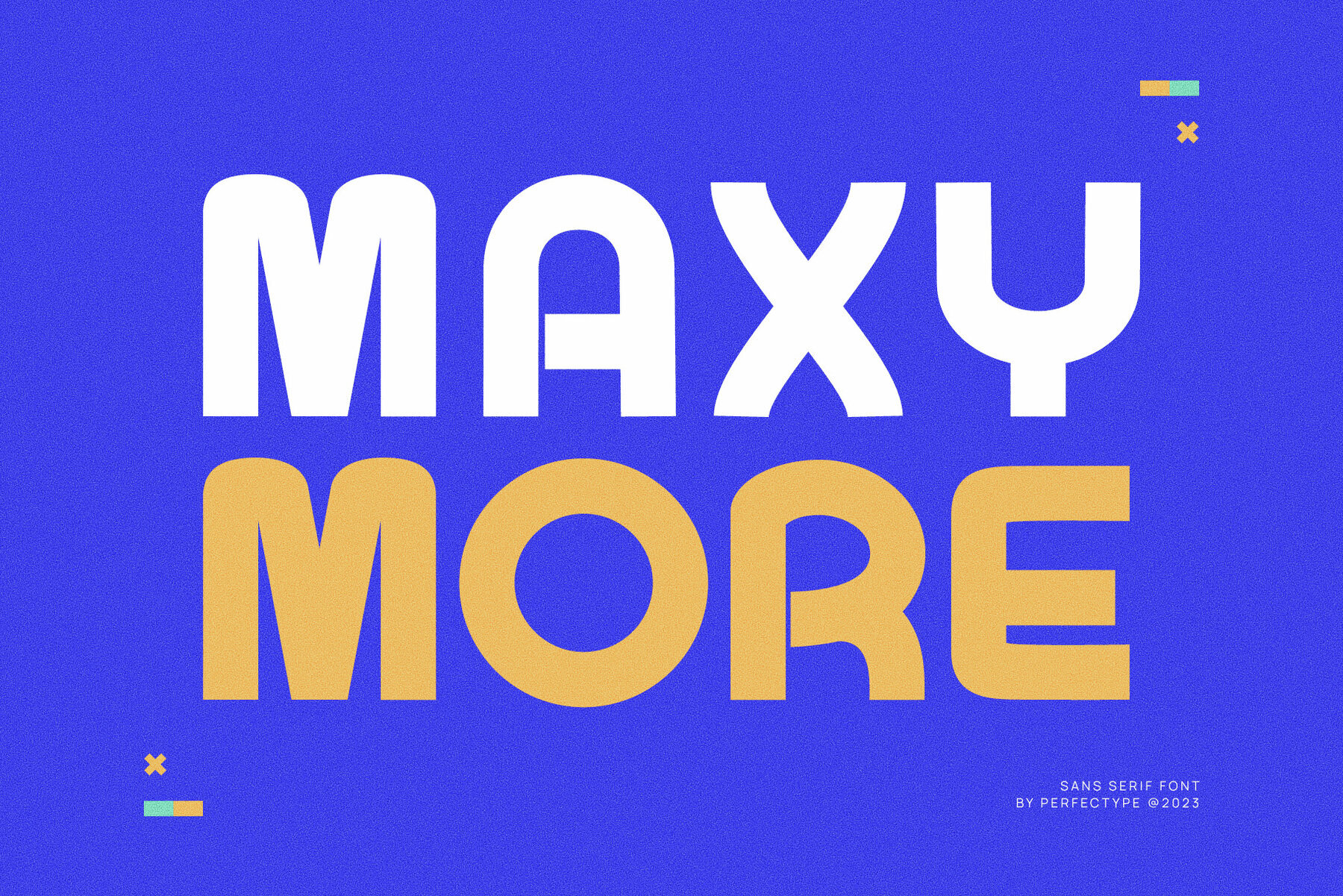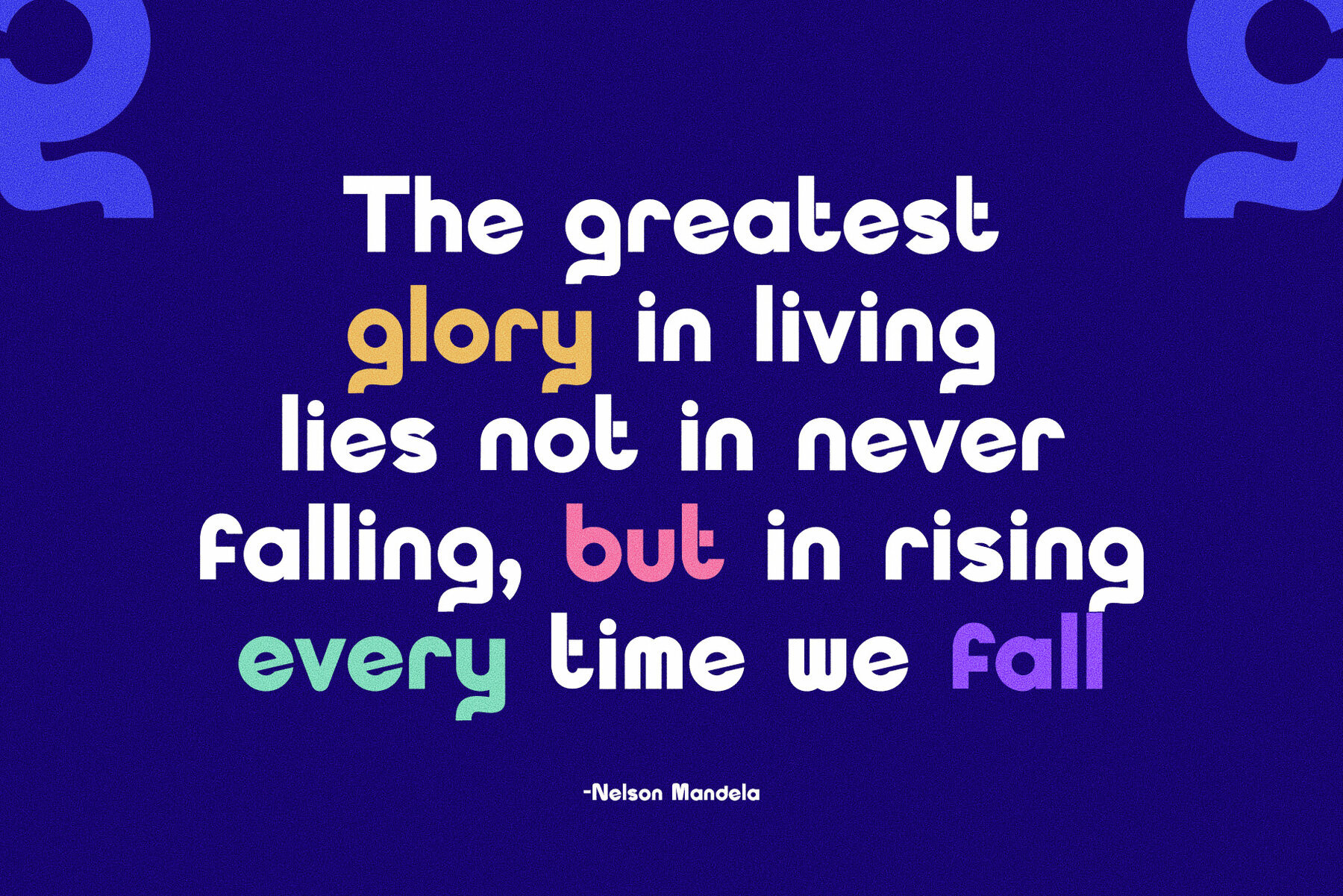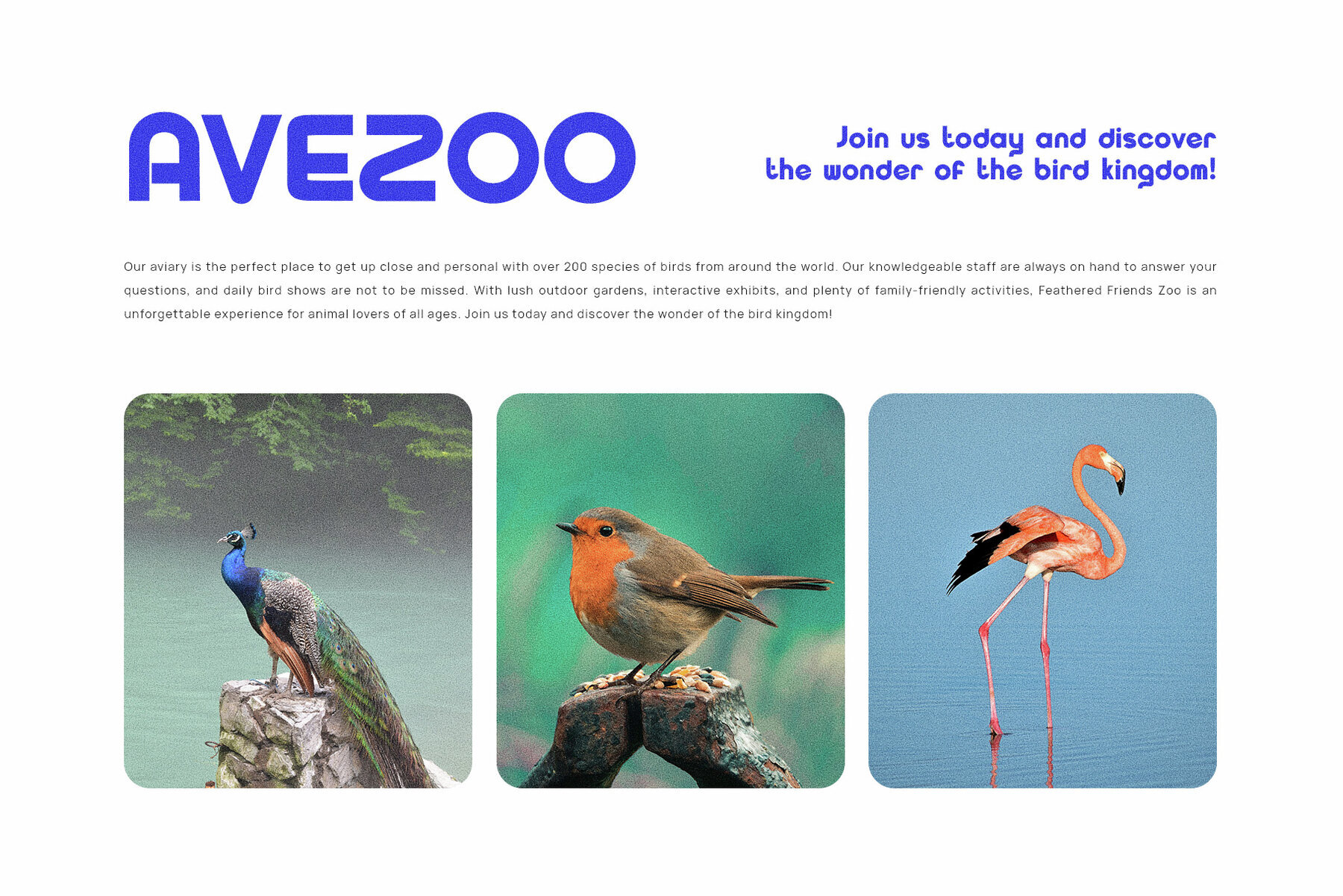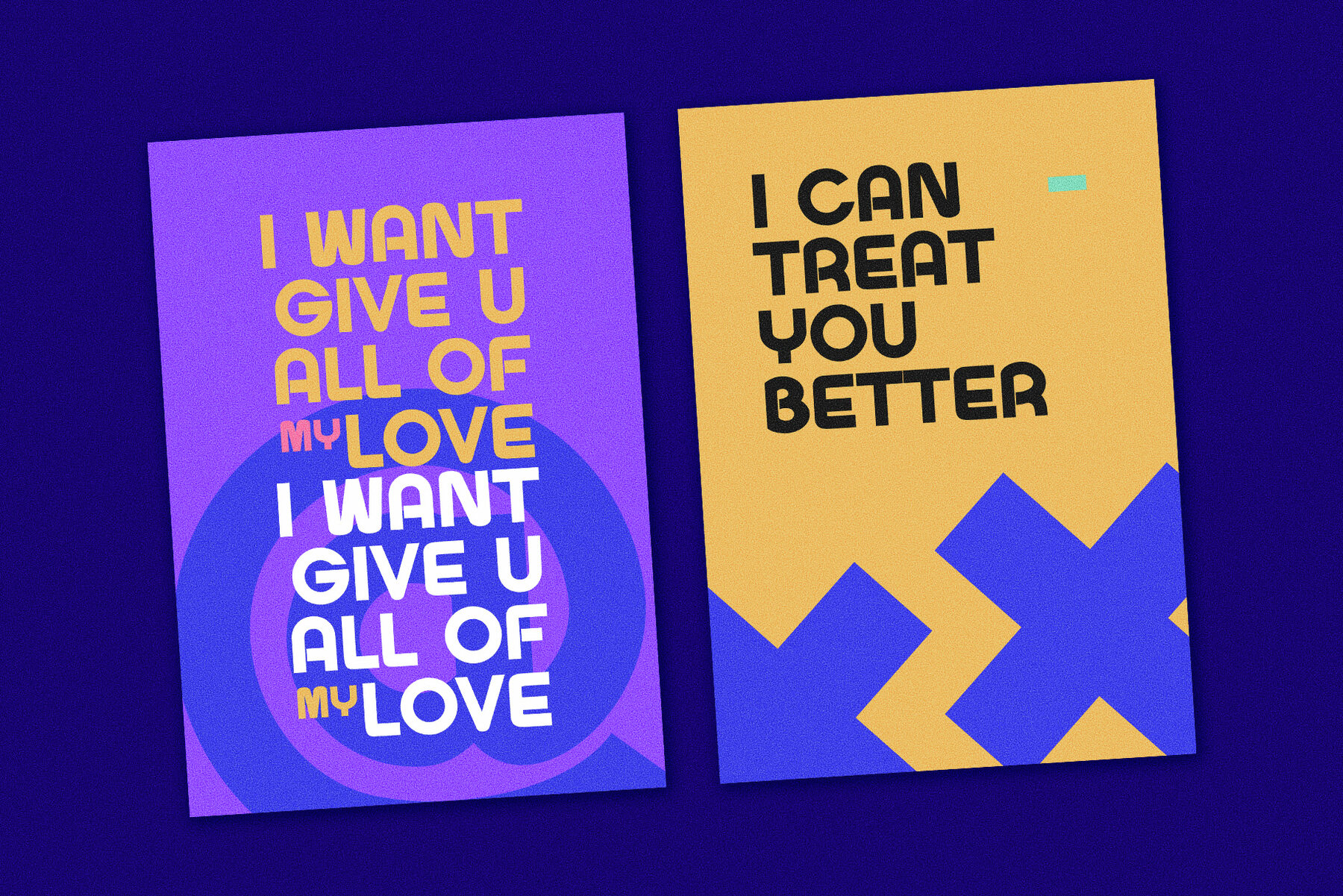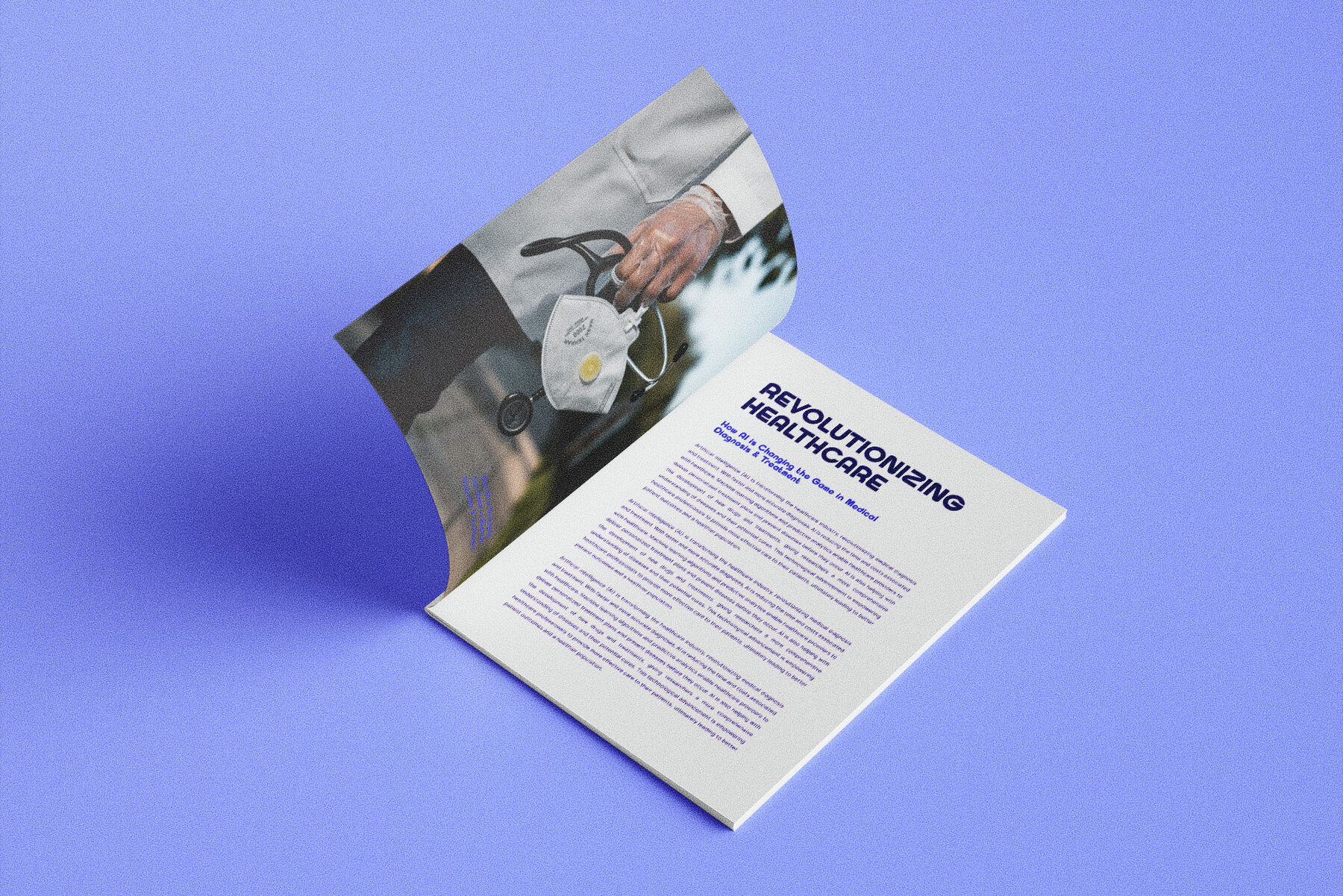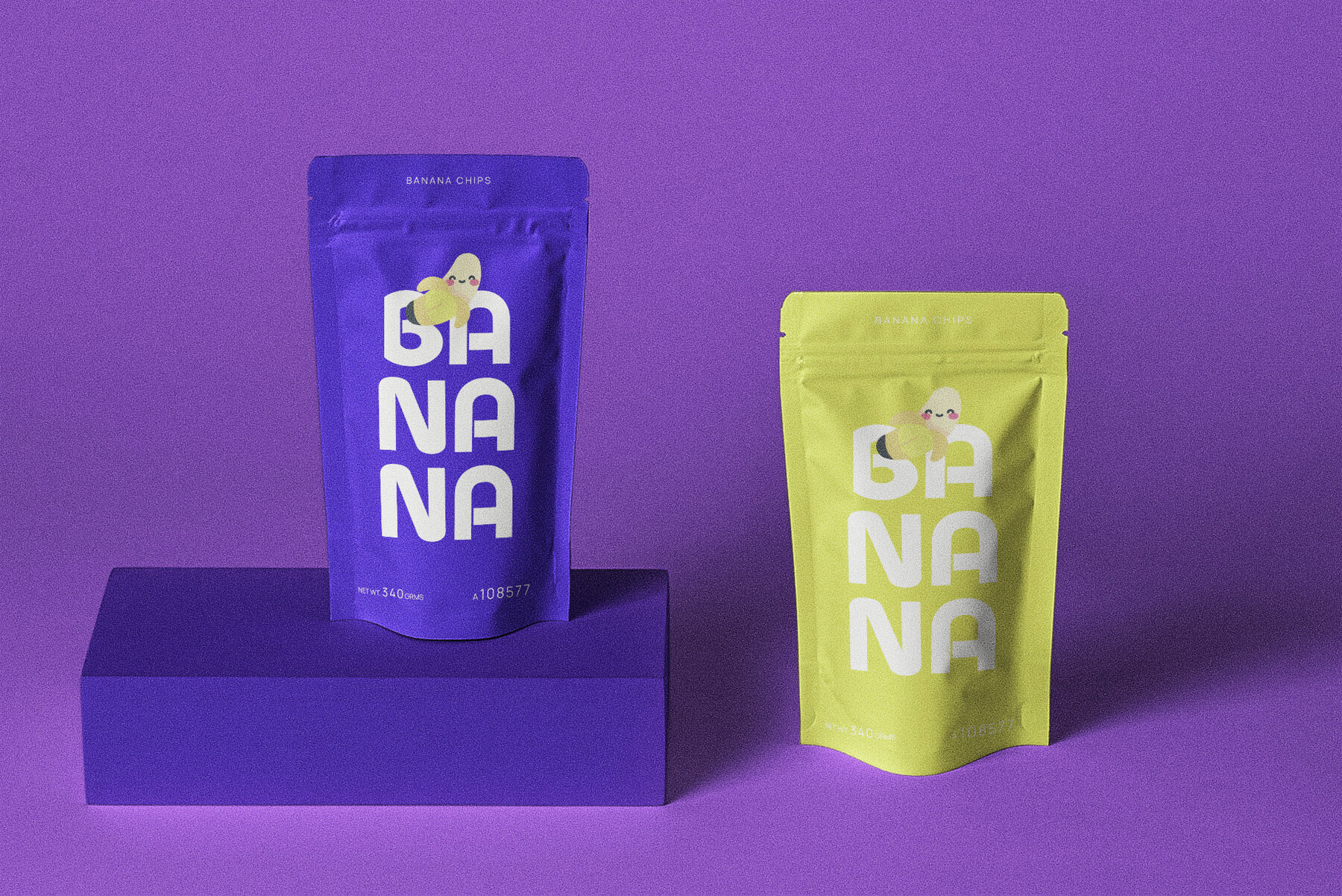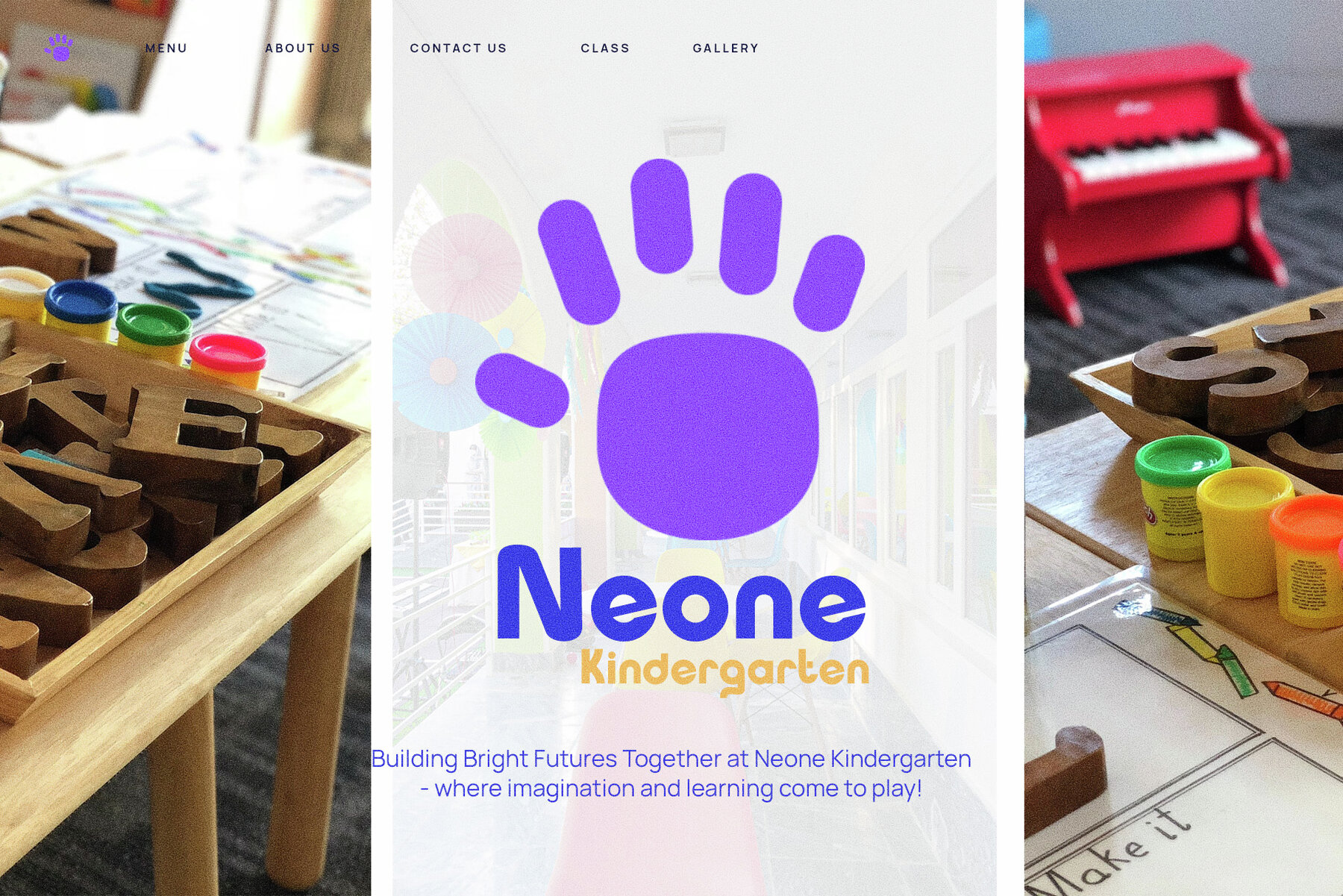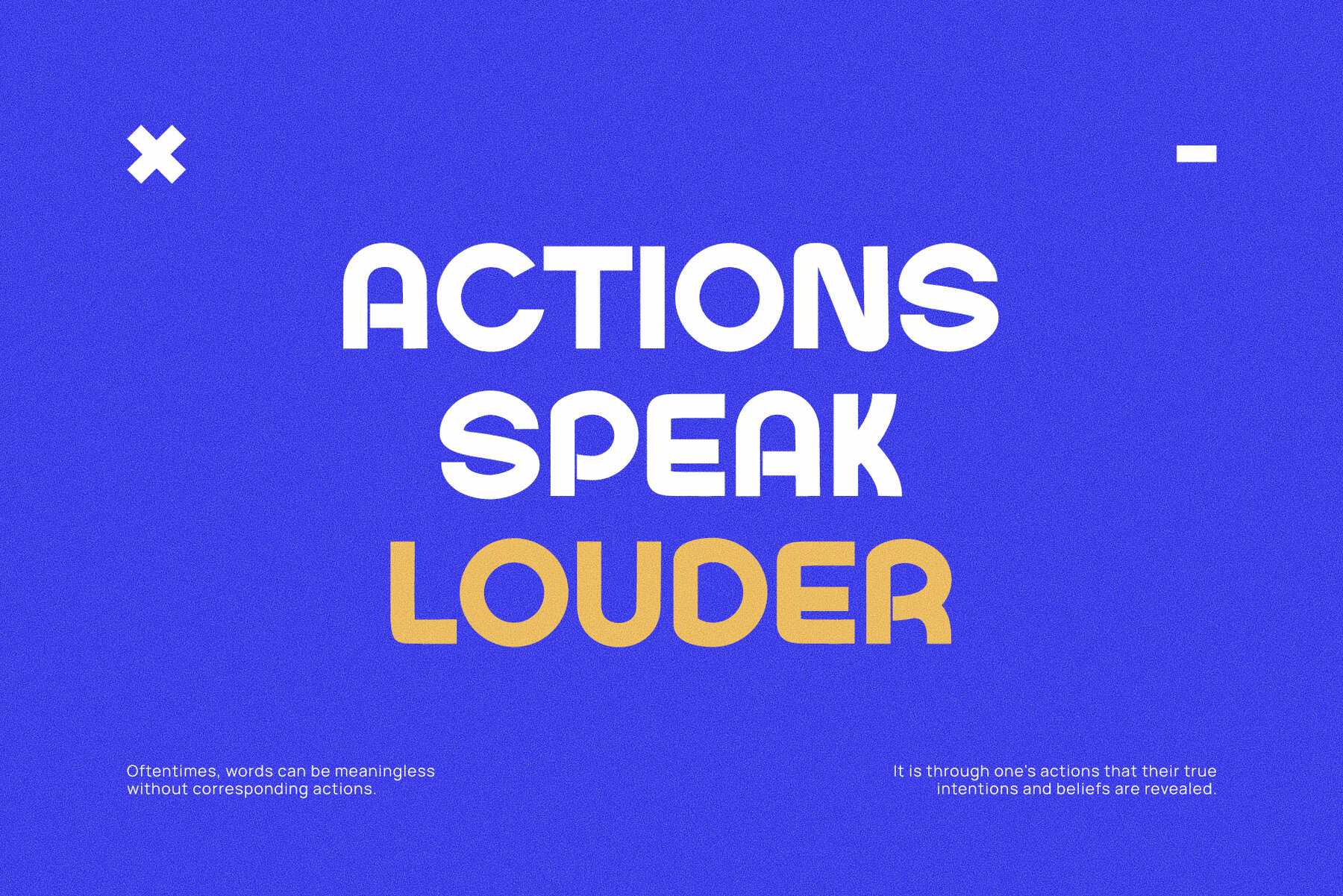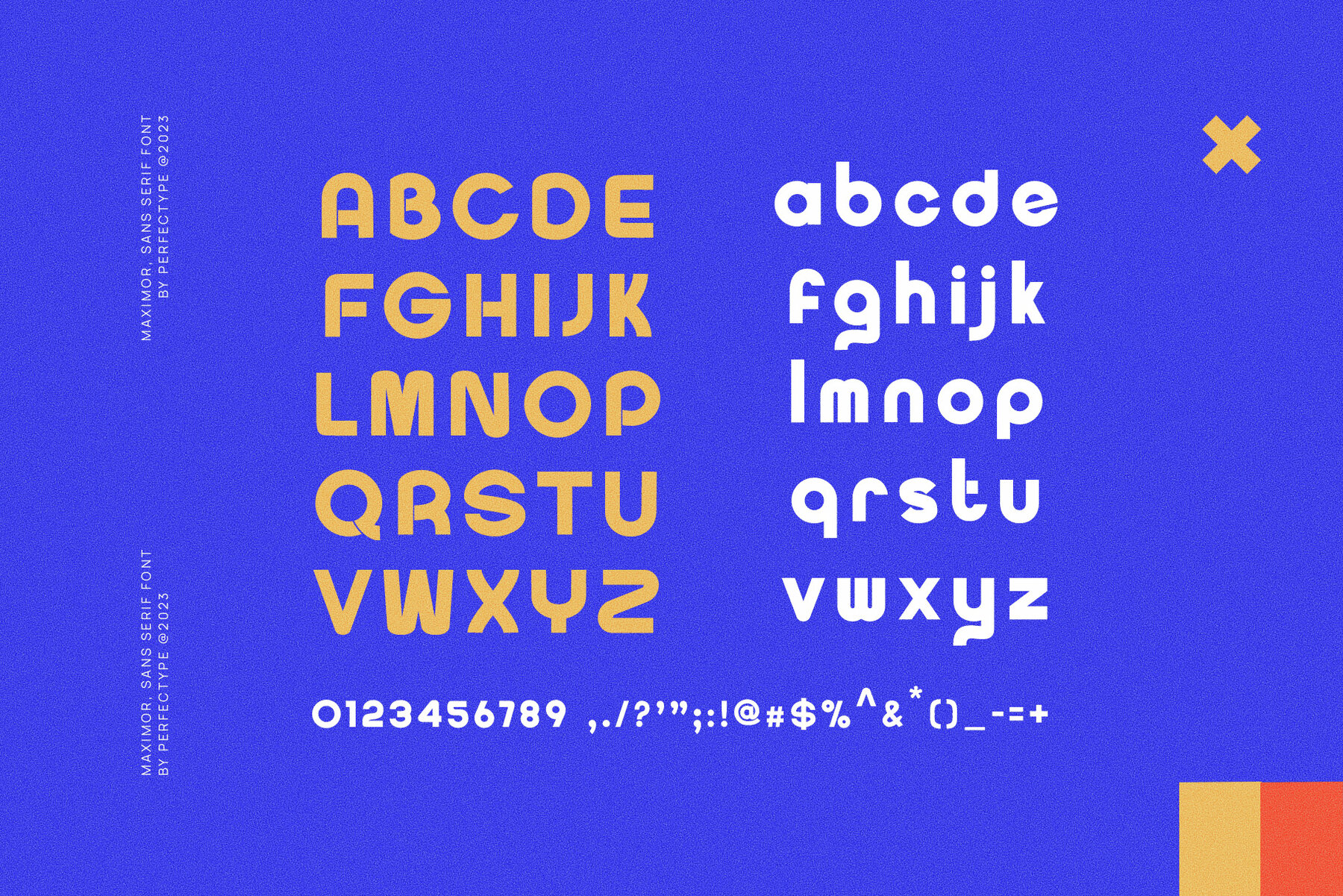
Maxy More Font
Maxy More Regular
Maxy More is a sans serif font designed to offer a perfect balance between aesthetics and readability. Its creation focuses on neatness and a meticulous philosophy, making it an excellent choice for a variety of branding applications. Ideal for use in graphic design, this font is suitable for brochures, videos, advertising materials, logos, magazines, layout designs, posters, social media templates, and games. For optimal use, we recommend employing Maxy More with Adobe Illustrator or Adobe Photoshop. Should you have any inquiries, feel free to reach out, and I'll be happy to assist you.Maxy More: A Balanced and Readable Sans Serif